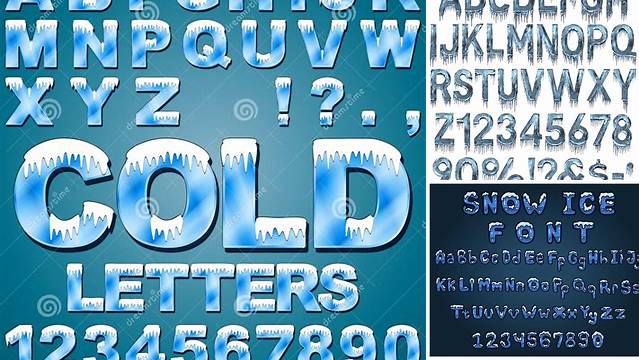
Free Frozen Ice Font Downloads: Get That Chilling Style!
Unlock the Magic: Your Guide to Free Frozen Ice Font Downloads
Hey guys, ever wanted to add a touch of icy cool to your designs, presentations, or even just a fun social media post? Well, you're in luck! We're diving deep into the awesome world of frozen ice font free download options. Imagine fonts that look like they've been chiseled from glaciers, dusted with frost, or shimmering with the ethereal glow of an aurora borealis. That's the kind of magic we're talking about! Getting your hands on these chillingly beautiful fonts doesn't have to cost a dime. We'll guide you through where to find the best freebies, what to look out for, and how to make them work wonders for your projects. Whether you're a seasoned designer or just starting out, understanding how to leverage these unique typographic elements can seriously elevate your visual game. We're talking about fonts that can evoke feelings of winter wonder, crispness, and sophisticated coolness. So, buckle up, because we're about to embark on a frosty journey to discover some seriously cool free fonts!
Discovering Chillingly Cool Fonts: What Makes an Ice Font Special?
So, what exactly makes a font scream 'frozen' or 'ice'? It's all about the visual cues, right? Think about the natural textures and forms found in ice and snow. We're talking about sharp, crystalline edges, soft, powdery textures, and that translucent, sometimes slightly blueish hue. When designers create frozen ice fonts, they try to capture these elements. You might see fonts with jagged, uneven strokes mimicking cracked ice, or others with a smooth, rounded quality like polished ice or packed snow. Some fonts even incorporate subtle textures, like tiny dots representing frost or a frosty sheen. The color palette often leans towards blues, whites, and silvers, but the true magic is in the shape and feel of the letters themselves. A good frozen ice font free download will make you feel the chill just by looking at it. It's more than just letters; it's an atmospheric element that can transport your audience. Whether it's for a winter-themed party invitation, a holiday advertisement, or a branding project that needs a cool, sophisticated edge, these fonts are your go-to. We'll explore how different styles capture this icy essence, from the super sharp and angular to the more softened and powdery looks. Get ready to be inspired by the sheer creativity that goes into making letters look like they belong in an arctic wonderland!
Your Free Download Destination: Top Sites for Frozen Ice Fonts
Alright, let's get down to business – where can you actually snag these amazing frozen ice font free download treasures? Fortunately, there are several fantastic websites dedicated to offering high-quality free fonts, and many of them have a great selection of icy and winter-themed typography. Sites like DaFont, Font Squirrel, and Google Fonts are your first port of call. While Google Fonts might not have a huge direct selection of 'ice' fonts, they offer a vast library of versatile fonts that can be styled to look icy with the right effects in your design software. DaFont is a goldmine for quirky and themed fonts, and you'll often find user-submitted frozen ice font free download options there that are perfect for specific projects. Font Squirrel is known for its curated collection of high-quality, free-for-commercial-use fonts, which is super important if you're using them for business. Beyond these big players, keep an eye out for smaller font foundries or independent designers who sometimes offer their creations for free, especially around the holiday season. Remember to always check the licensing agreement for any font you download, even free ones. Some might be free for personal use only, while others allow commercial use. We'll help you navigate these platforms and point you towards the best places to start your hunt for that perfect frosty typeface.
Exploring Different Styles of Ice Fonts: From Glacial Sharpness to Powdery Softness
When we talk about frozen ice font free download options, it's not just a one-size-fits-all situation. The world of icy typography is surprisingly diverse! You've got fonts that mimic the sharp, angular, and sometimes jagged nature of a glacier. These fonts often have pointed serifs, broken strokes, or a crystalline structure that feels very precise and dramatic. They're perfect for making a bold statement, conveying a sense of power, or adding a touch of danger, like a sharp icicle. On the other end of the spectrum, you'll find fonts that evoke the soft, powdery texture of fresh snowfall or a lightly frosted surface. These might have rounded edges, a slightly blurred effect, or a gentle, almost hazy appearance. They bring a sense of calm, purity, and delicate beauty to your designs. Then there are fonts that play with translucency and light, perhaps with subtle gradients or an outline effect that suggests light passing through ice. You might even find fonts with integrated 'frost' elements, like little sparkles or delicate ice crystal shapes forming parts of the letters. Exploring these different styles allows you to choose the perfect 'chill' factor for your specific project. Whether you need something sharp and edgy or soft and serene, there's a frozen ice font free download out there waiting for you.
Designing with Ice: Tips for Using Frozen Fonts Effectively
Alright, you've found the perfect frozen ice font free download, but how do you make it shine in your design? Using these unique fonts effectively is key to making a big impact without overwhelming your project. First off, consider the context. Is your design meant to be playful and festive, or sleek and sophisticated? An icy font can lean either way, so match the font's vibe to your project's mood. For instance, a sharp, angular ice font might be great for a winter sale banner, while a softer, frosted font could be perfect for a holiday greeting card. Don't overdo it, guys! It's tempting to use a striking font everywhere, but often, using it for headlines, titles, or key call-to-action elements is most effective. Pair your eye-catching ice font with a simpler, more readable sans-serif or serif font for body text. This creates contrast and ensures your important information is easily digestible. Think about color too. While blues, whites, and silvers are natural fits, don't be afraid to experiment. A bold red ice font can be incredibly striking for a winter event. Consider adding subtle effects in your design software – a slight glow, a soft shadow, or a touch of transparency can really enhance the icy feel without making the text illegible. Remember, the goal is to enhance your message, not to make it hard to read. Experimentation is your friend here, so play around and see what looks coolest!
Beyond the Frost: Creative Applications for Ice Fonts
So, we've talked about downloading and using these cool fonts, but let's brainstorm some really creative ways you can employ a frozen ice font free download. Forget just holiday cards; these fonts have surprising versatility! Imagine using a sharp, crystalline ice font for a tech startup logo that wants to convey innovation and cutting-edge solutions – it speaks of precision and clarity. Or perhaps a softer, snow-dusted font for a natural skincare brand aiming for a pure, serene aesthetic. For event invitations, think beyond winter parties: a frosty font could be perfect for a 'cool' jazz club event or a themed mystery night. Product packaging is another huge area. A beverage company could use an ice font to emphasize a 'refreshing' or 'chilled' quality. Even for digital content, like YouTube thumbnails or Instagram stories, a well-placed icy font can grab attention instantly. Gamers, listen up! These fonts are ideal for in-game titles, character names, or even lore elements in fantasy or sci-fi games that have wintery settings. Think about using them for album art for bands with a 'coldwave' or ambient sound. The possibilities are endless, guys. It's all about thinking outside the box and matching the unique character of the font to the unique needs of your project. Let your imagination run wild with these frosty typographic tools!
Making Your Own Ice Effect: Beyond Simple Font Downloads
While a frozen ice font free download is awesome, sometimes you want something truly unique, or maybe you can't find the exact style you're looking for. Good news! You can actually create your own ice-themed text effects using graphic design software like Adobe Photoshop or even free alternatives like GIMP. This opens up a whole new universe of customization. You can start with a basic font – maybe a bold sans-serif or a decorative script – and then layer effects. Think about applying textures: you can import actual ice or frost photos and use blending modes to overlay them onto your text. Experiment with layer styles, like Bevel & Emboss to create depth and dimension, inner and outer glows to mimic light refraction through ice, and color overlays or gradients to achieve that perfect icy blue or white hue. You can even manually add jagged edges or frosty details using brush tools. This approach gives you complete control over the look and feel. It takes a bit more effort than a simple download, but the results can be incredibly custom and professional. So, if you're feeling adventurous, try your hand at crafting your own signature ice effect – it's a fantastic way to make your designs stand out!
Ensuring Readability: The Balance of Style and Substance
Okay, so we're all about rocking those cool frozen ice font free download styles, but let's be real: if people can't read your text, what's the point? This is where the crucial balance between visual flair and legibility comes in. Many decorative fonts, including some of the more stylized ice fonts, can sometimes sacrifice readability for aesthetics. This is why it's super important to test your chosen font in different sizes and contexts. A font that looks stunning as a giant headline might become a jumbled mess when used for smaller body text. Always prioritize clarity, especially for important information like contact details, prices, or instructions. If a particular ice font is a bit tricky to read, consider using it sparingly for impact on short words or phrases, and then pair it with a clean, highly legible font for everything else. Think about the contrast between your text color and the background color too – a white ice font on a light blue background might disappear! We want your message to be clear and impactful, not lost in a blizzard of frosty effects. So, while you're having fun with the icy aesthetic, remember that the primary function of text is communication. Make sure your chosen font, no matter how cool it looks, actually works for your readers.
Licensing Nuances: Understanding Different Free Font Licenses
When you're diving into the world of frozen ice font free download options, you'll encounter various licenses. We touched on personal vs. commercial use earlier, but let's unpack this a bit more, guys. The most common and generally user-friendly license you'll see for free fonts is the SIL Open Font License (OFL). This license is fantastic because it allows you to use, modify, and distribute the font freely, both for personal and commercial projects, with very few restrictions. You generally just need to keep the font file and its metadata intact and not try to sell the font itself as a new product. Other licenses might be more restrictive, perhaps limiting embedding in certain types of documents or prohibiting use in logos. Sometimes, you might find fonts that are offered as